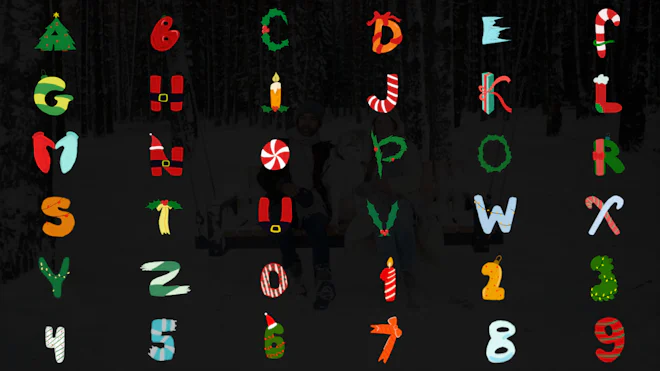
A creative collection of animated letters and numbers stylized as Christmas elements such as candy canes, Santa hats, candles, winter branches, etc.
- 26 Letters
- 10 Numbers